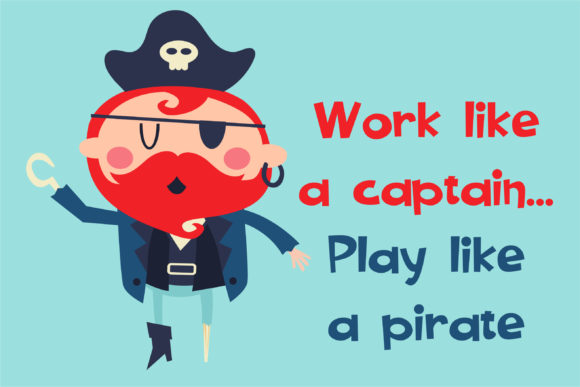
Introduction to Captain Calvin Font
Have you ever stumbled upon a font that makes you feel like you’re stepping into a world of wonder? For designers, it’s that moment when a perfect font comes along and sparks creativity. It’s like finding the missing piece of a puzzle that makes your project shine. For many, that font is Captain Calvin Font, a delightful sans serif font that’s perfect for titles, displays, and posters.
Whether you’re working on a free download or a high-quality design project, Captain Calvin Font is a valuable resource that can elevate your creative work. Its playful look and feel make it an ideal choice for designers who want to add a touch of whimsy to their designs. With a transparent background, you can easily integrate it into any design without worrying about distractions.
Key Features of Captain Calvin Font
- Unique, hand-drawn style font with transparent background for versatile usage.
- Includes 4 font styles: Regular, Italic, Bold, and Bold Italic, for added versatility.
- Resolution-independent design ensures crisp and clear display at any size, from small to large.
- Perfect for various design projects, including logos, branding, packaging, and digital artwork.
- Supports multiple languages, making it a great choice for global design projects.
Honest Review: Captain Calvin Font
As a designer, I’m always on the lookout for high-quality fonts that can elevate my creative projects. I recently came across Captain Calvin Font, and I’m excited to share my honest review.
- ✨ High-quality design: The font is well-crafted, with clean lines and a unique aesthetic that’s perfect for modern designs.
- ✨ Transparent background: The font has a transparent background, making it easy to use on top of images or other design elements.
- ⚠️ Limited language support: The font only supports a few languages, which may be a limitation for designers working on projects with multiple language requirements.
- ⚠️ Not ideal for small text: The font is best used for headings and titles, as the letterforms can become difficult to read at small sizes.
Captain Calvin Font is commonly used in:
- Print materials, such as business cards and brochures
- Digital marketing materials, such as social media graphics and email templates